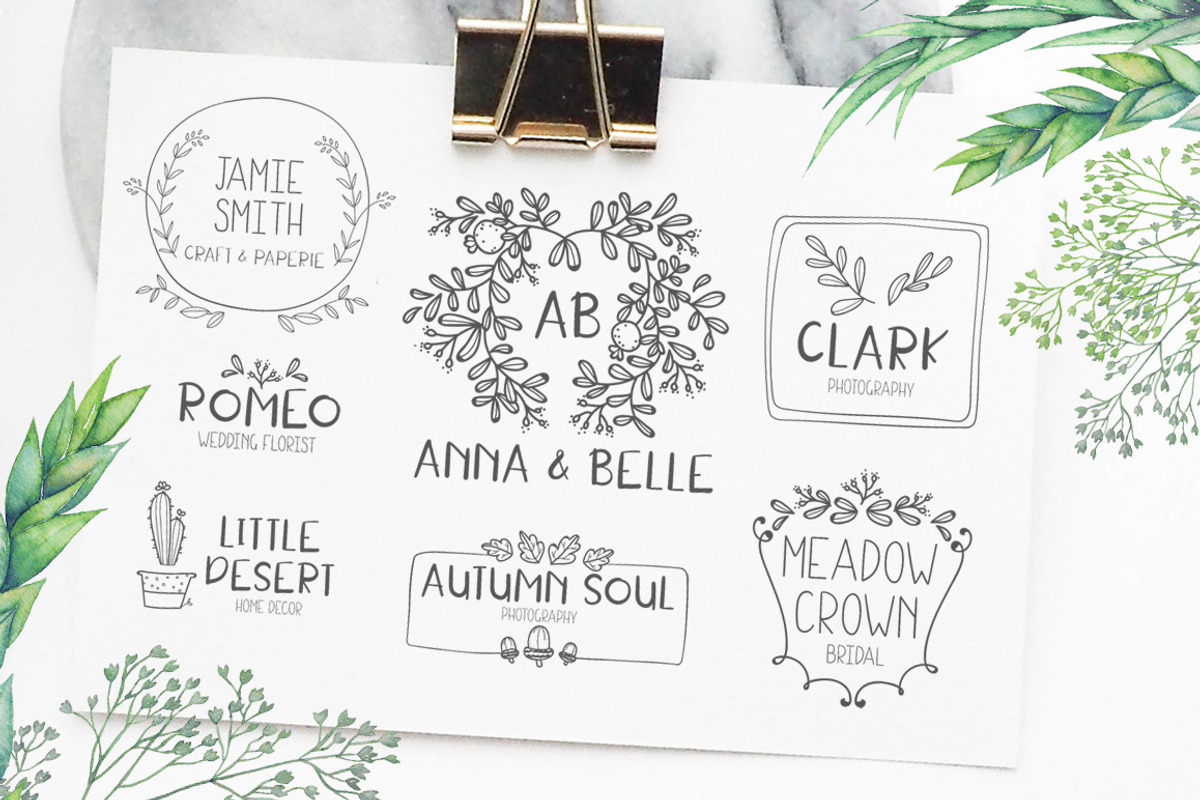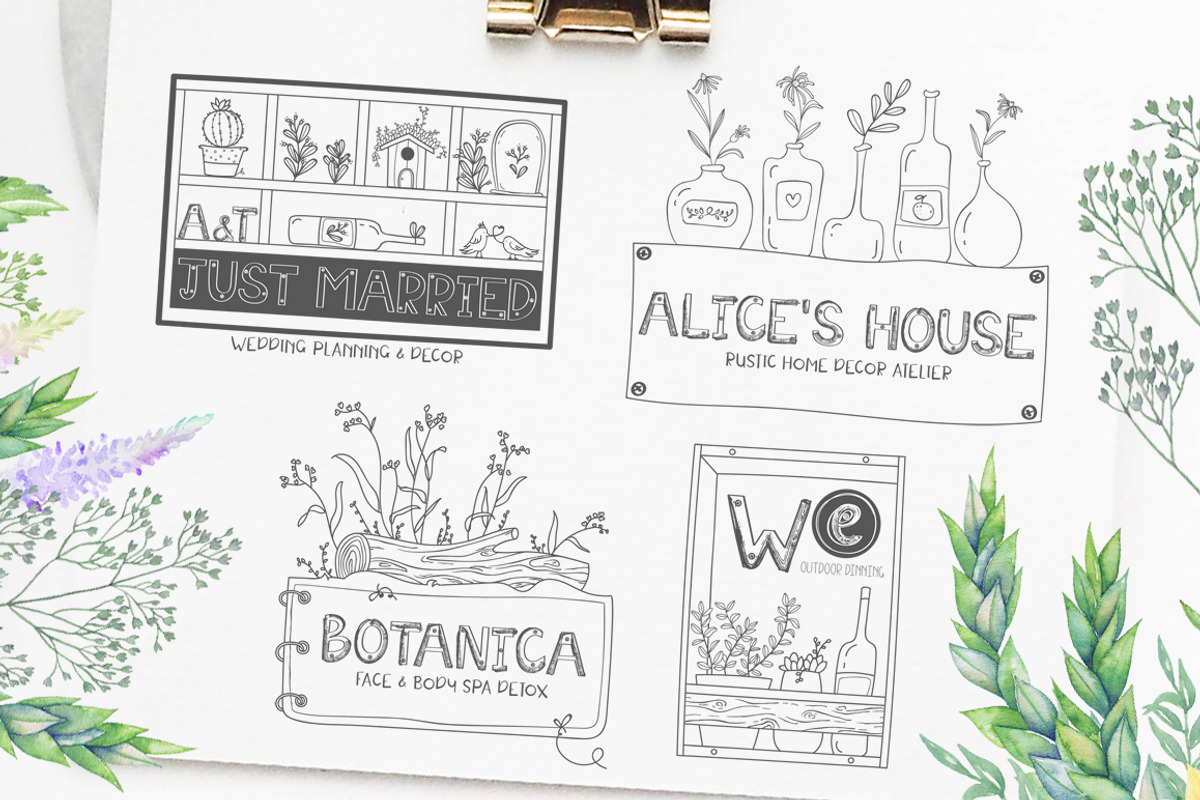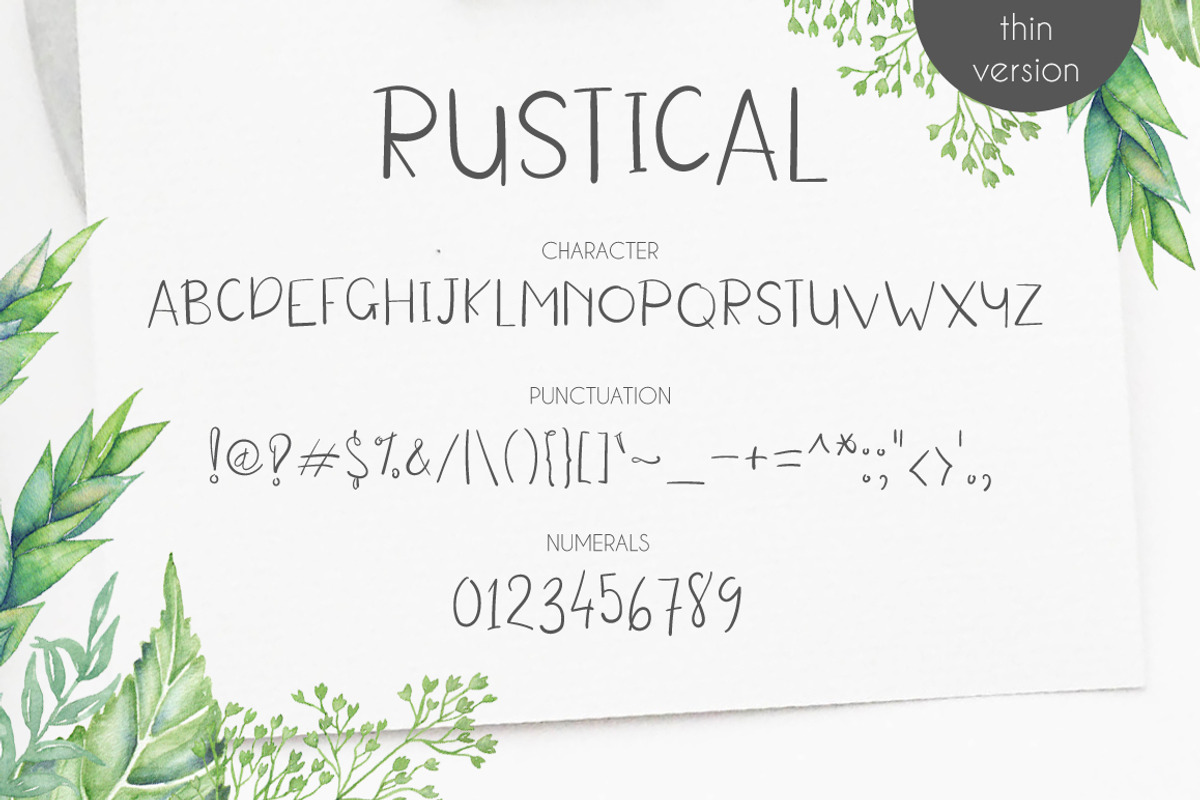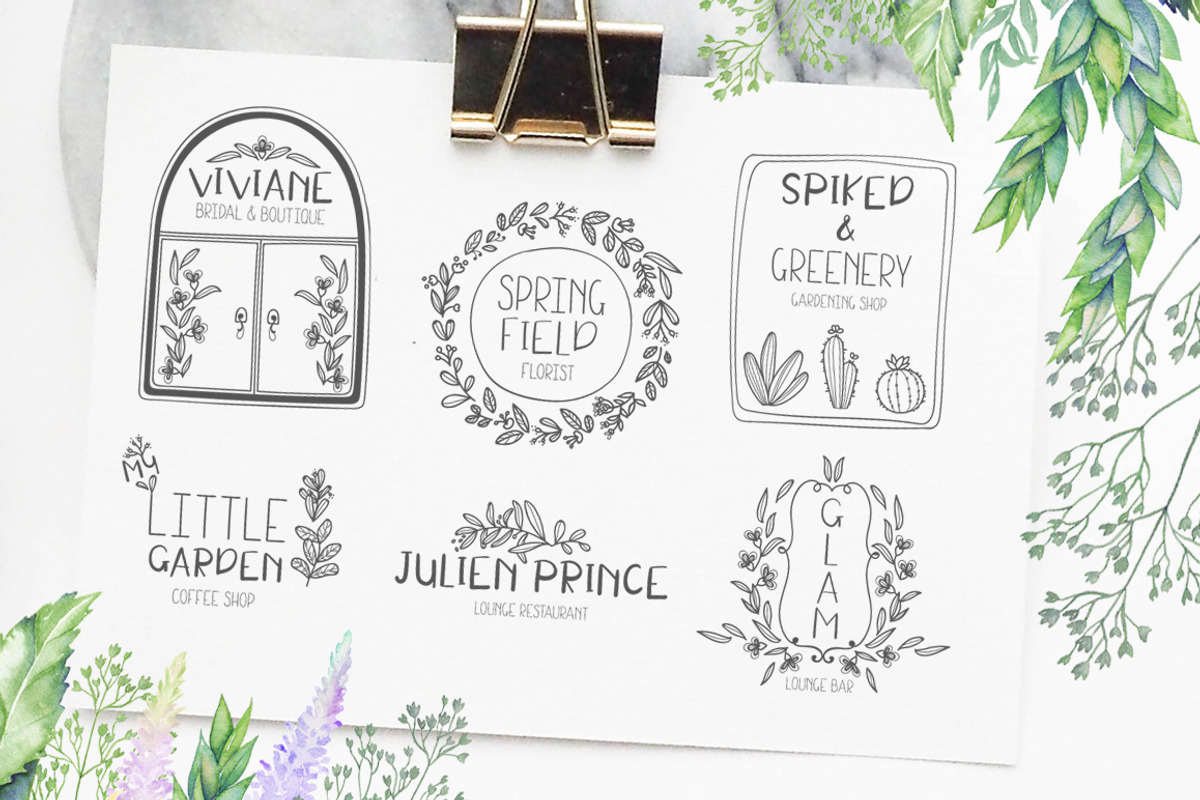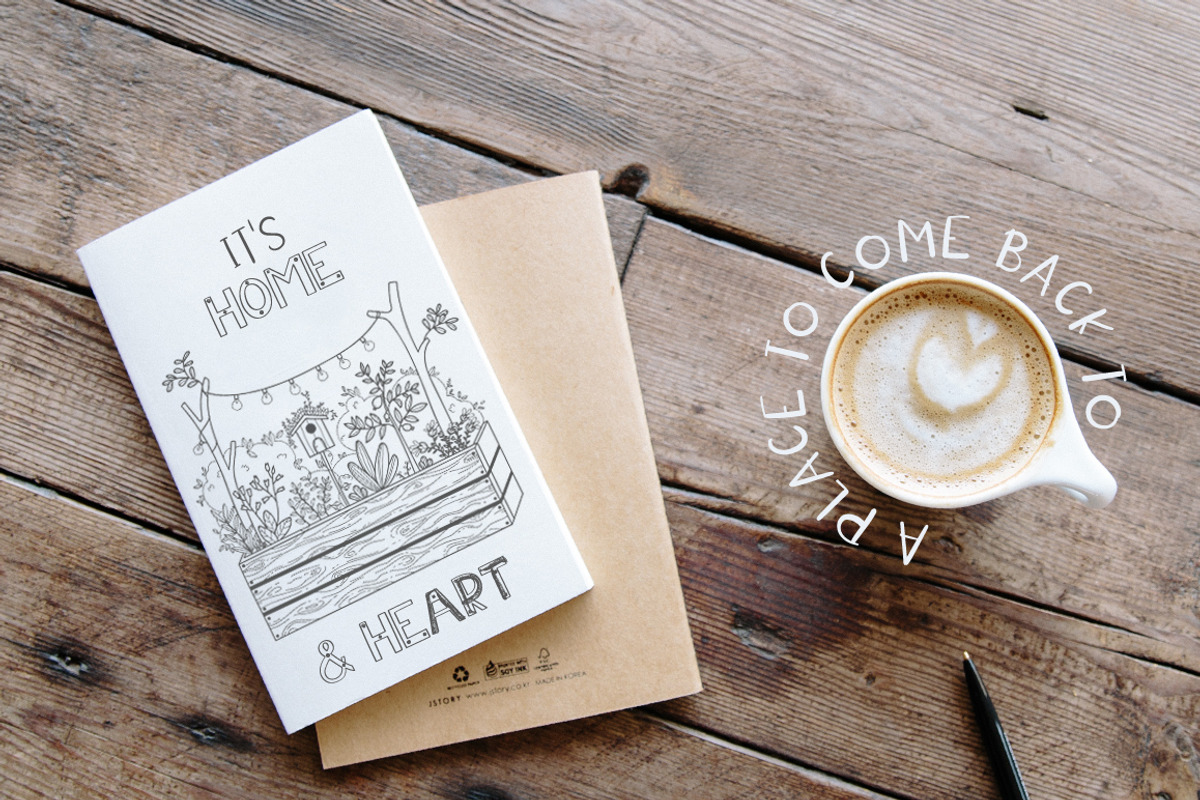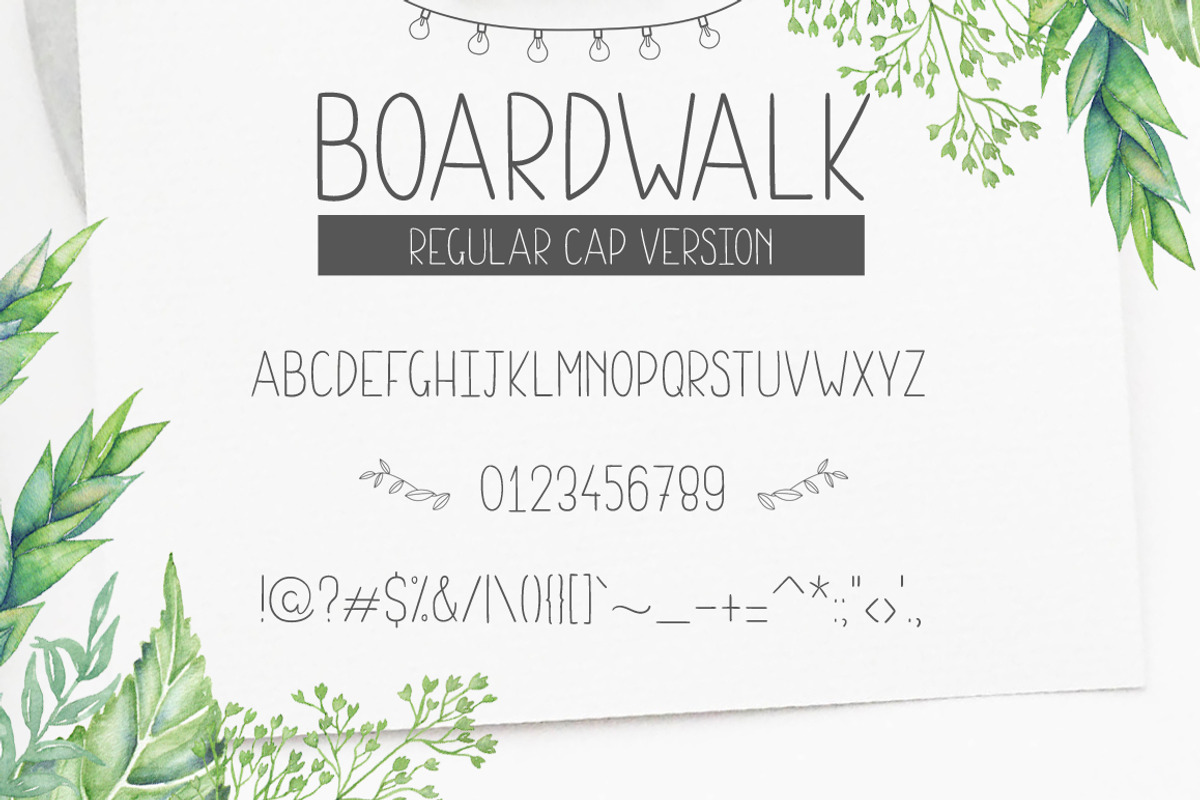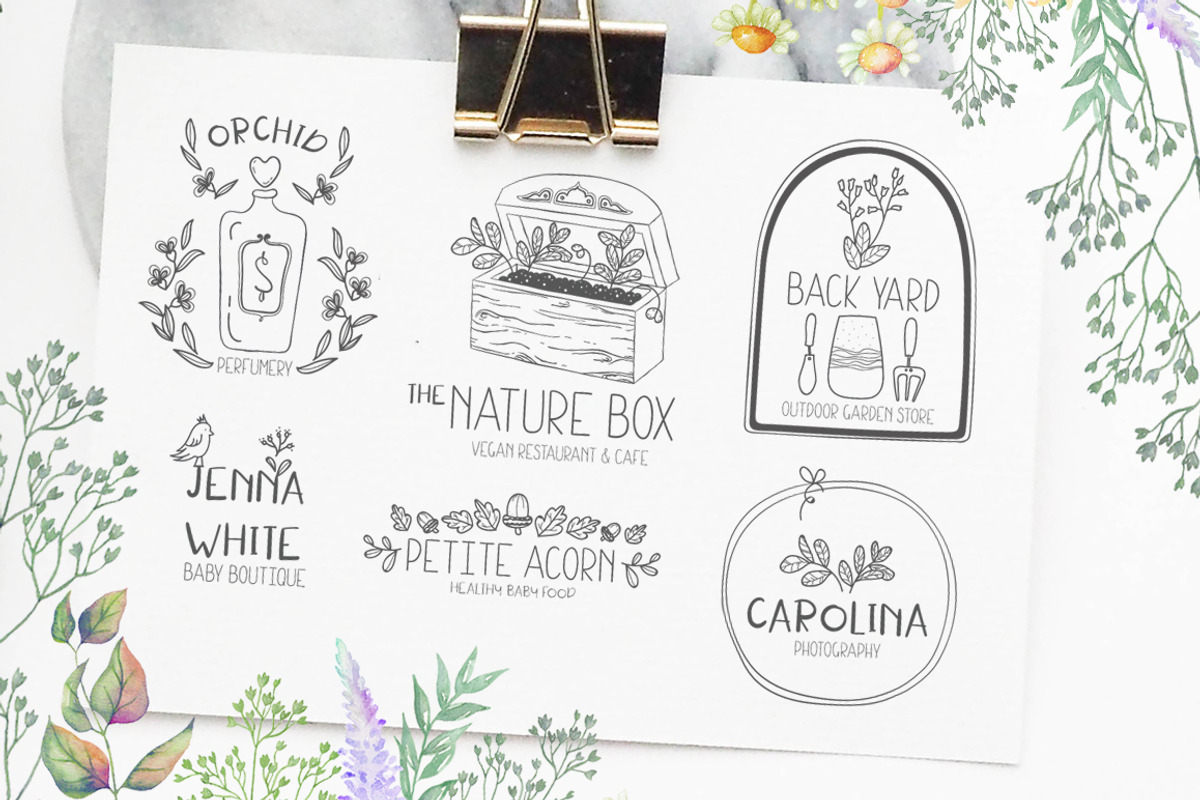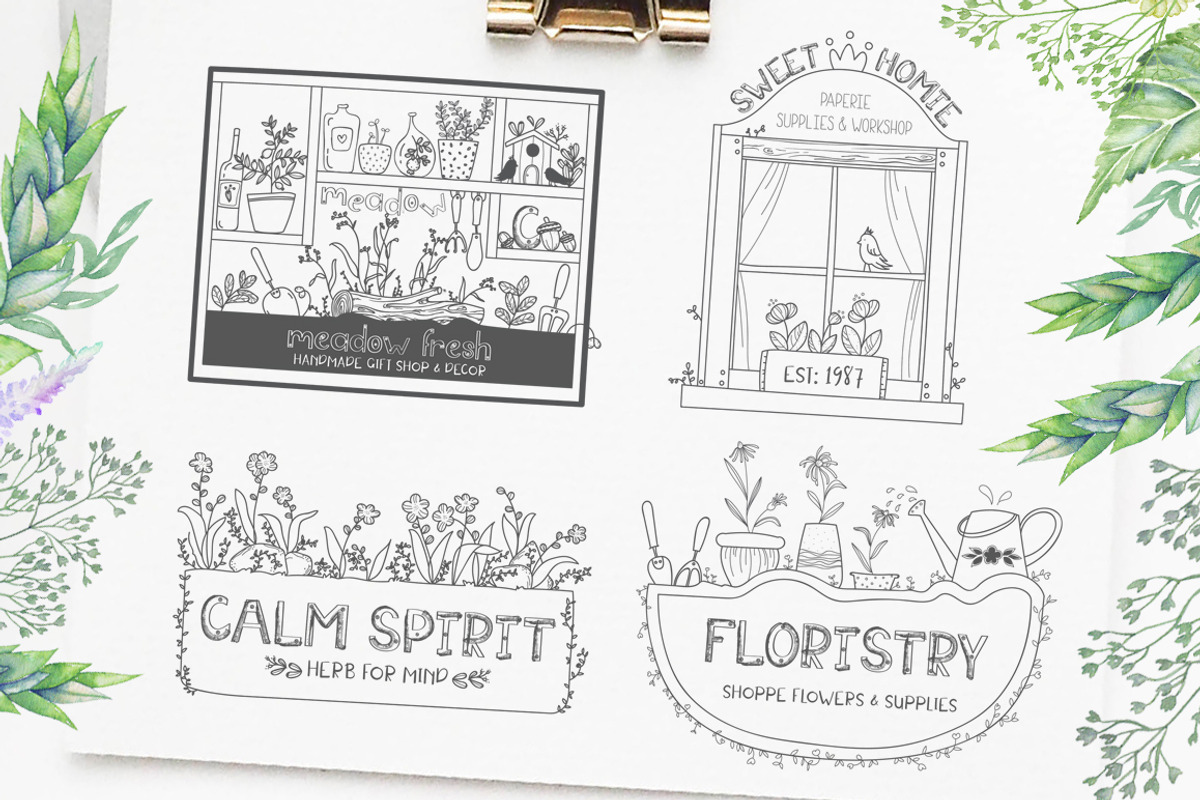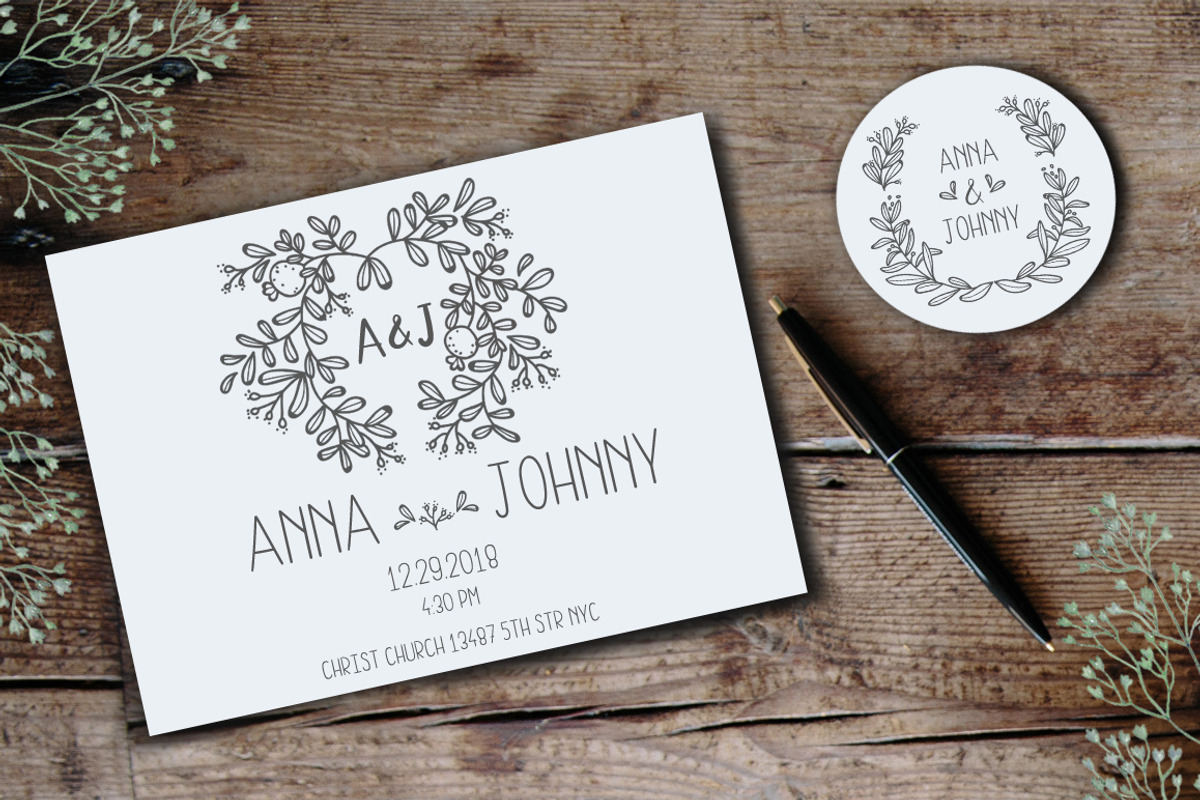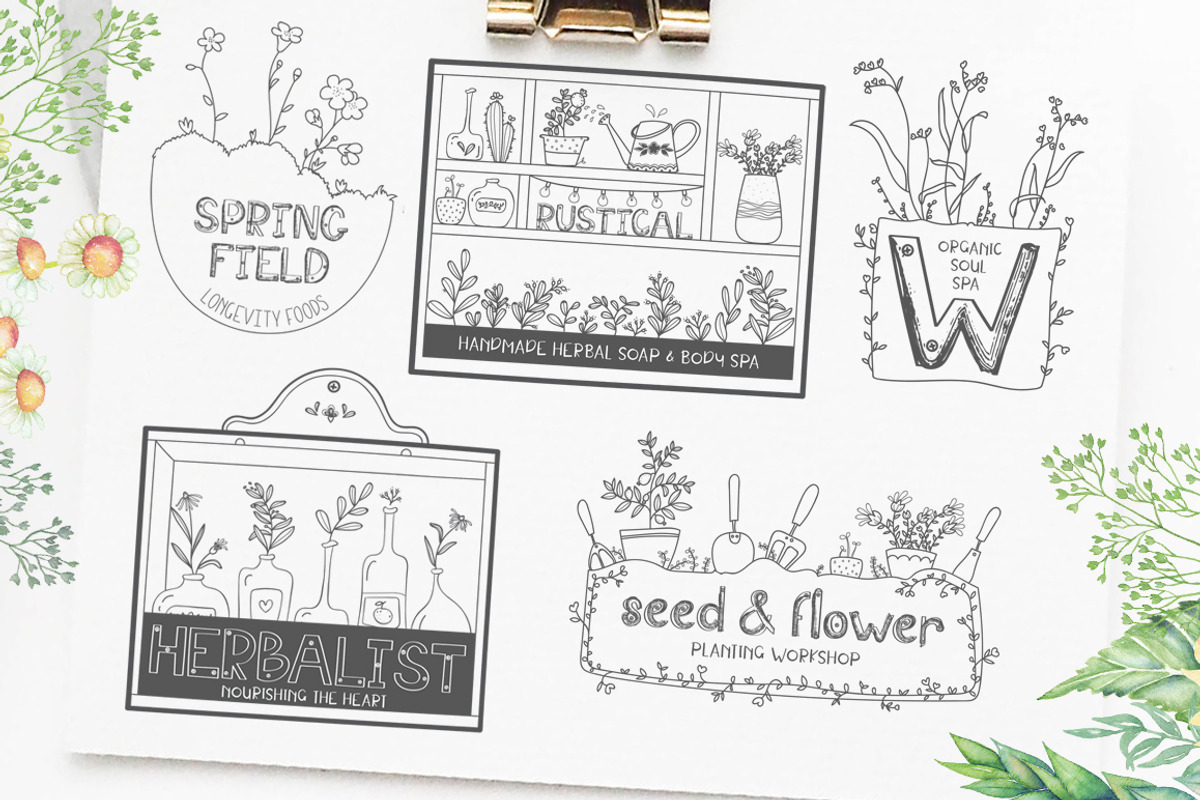
Rustical Boardwalk
Rustical Boardwalk set are comes with unique fonts, special Hand Drawn Illustrations to design so many thing you want, perfect for your personal or commercial projects, create invitations, logos, book covers, stationery, quotes and more.
53 Premade Logos design and branding ideas are ready to use for your projects.